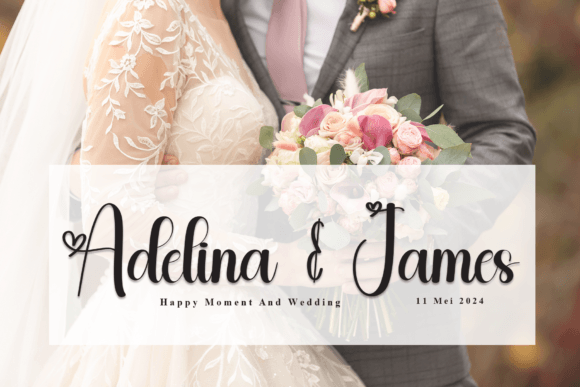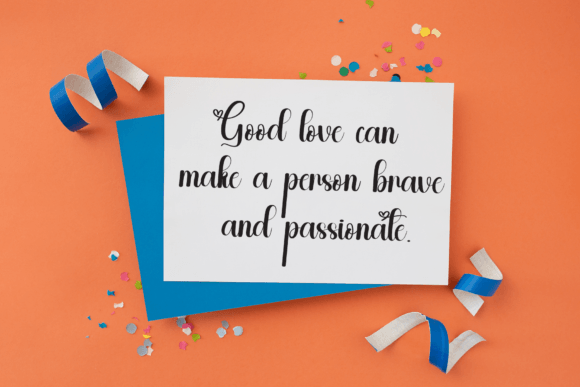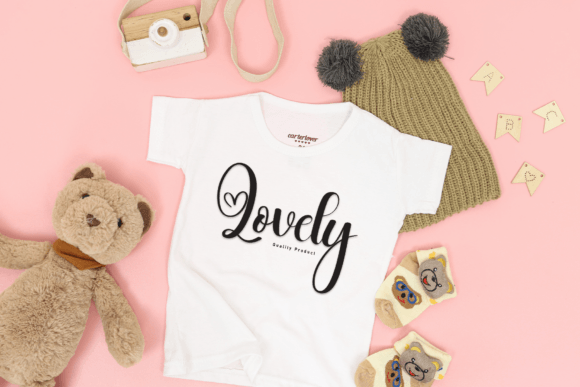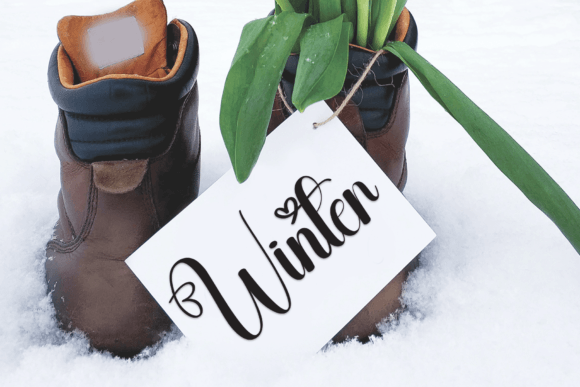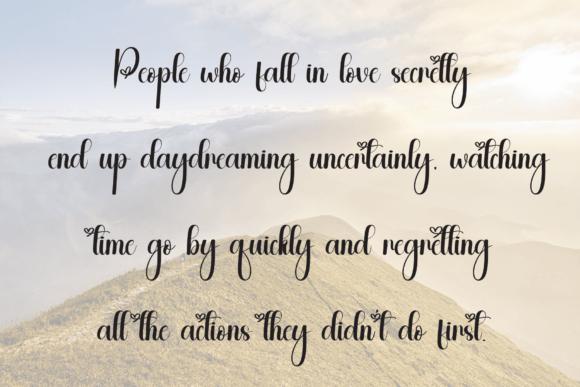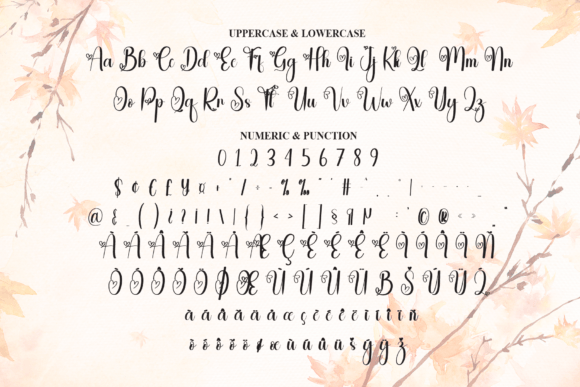
Introducing Autumn Font: The Charmingly Delightful Handwritten Font
As a designer, I’ve had my fair share of moments where I’ve struggled to find the perfect font for a project. I recall working on a wedding invitation design for a dear friend, wanting to create something that exuded warmth, friendliness, and a dash of whimsy. That’s when I stumbled upon Autumn Font, a charmingly delightful handwritten font that instantly captured the essence of the occasion. In this article, I’ll share my experience with Autumn Font, its features, and how you can make the most of it in your creative projects.
A Personal Review of Autumn Font
So, what makes Autumn Font so special? Let’s dive into the good stuff! 😊
• ✨ Sweet and Friendly Vibe: Autumn Font radiates a sense of fun and cuteness, making it perfect for projects that require a playful touch.
• ✅ Highly Legible: Despite its whimsical nature, Autumn Font remains highly legible, even at smaller font sizes.
• 🎉 Versatile: This font is suitable for a wide range of creative projects, from wedding invitations and cards to social media graphics and more.
While Autumn Font is an excellent choice for many projects, there are a few minor quirks to be aware of:
• 🤔 Limited Formality: Due to its playful nature, Autumn Font may not be the best choice for formal or professional projects.
• ⚠️ Glyph Compatibility: Some glyphs or special characters might not work seamlessly with certain software or platforms.
The Backstory Behind Autumn Font
Autumn Font was inspired by the warmth and coziness of the autumn season. The designer aimed to create a font that captured the essence of handwritten notes and letters, infusing them with a sense of friendliness and approachability. The result is a font that feels both personal and inviting.
What makes Autumn Font unique? Autumn Font stands out for its sweet, friendly vibe and highly legible design, making it perfect for creative projects that require a playful touch.
Is Autumn Font suitable for body text? While Autumn Font is highly legible, it’s best suited for headings, titles, and short paragraphs. For longer body text, consider pairing it with a more traditional font.
Autumn Font is a charmingly delightful handwritten font that can add a touch of whimsy and friendliness to your creative projects. With its sweet and approachable vibe, it’s perfect for designers, crafters, and hobbyists looking to make their creations pop. Experiment with Autumn Font today and discover how it can elevate your designs!